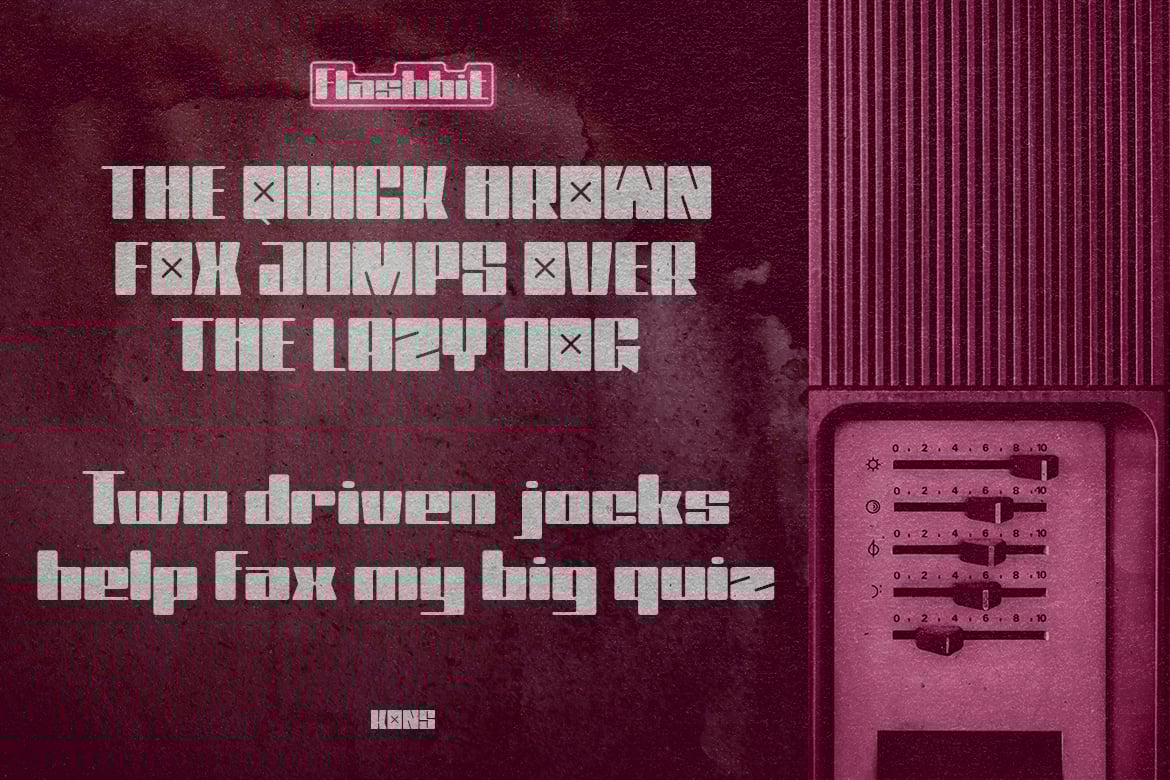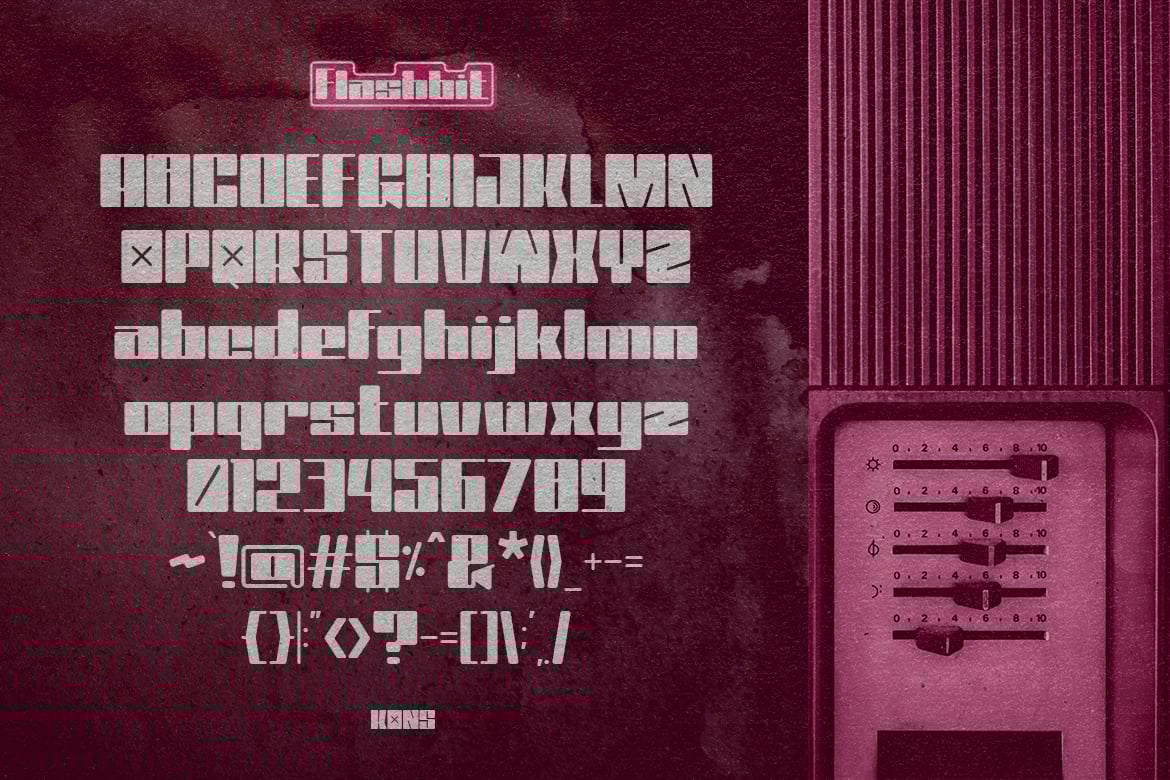
Flashbit – Retro Futuristic Y2K Fonts
Start your time machine to the Y2K era with FLASHBIT. A sophisticated retro-futurism style font inspired by the 2000s emerging digital world of visual graphics. We talk about posters, game design, tv shows, packaging, snacks, and many more.
Perfectly fit for your logo design, branding, gaming asset, esport design, game asset, fashion, packaging, you name it.